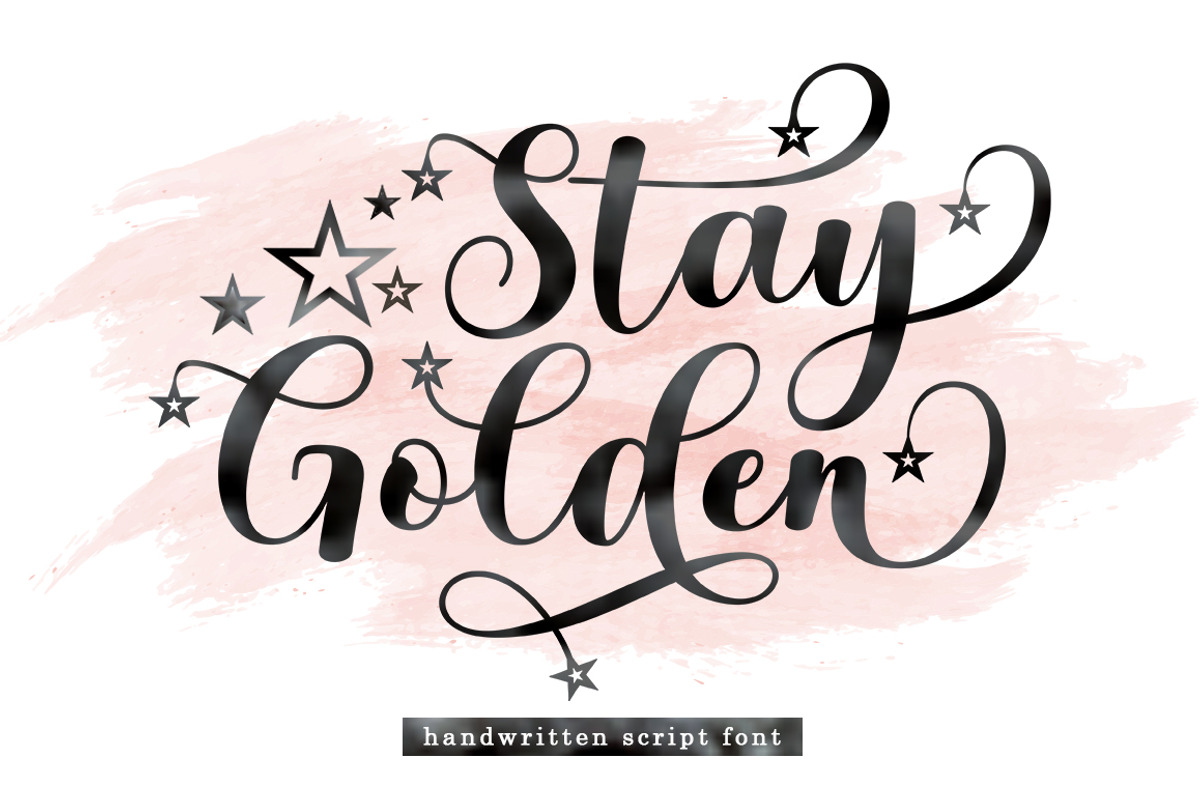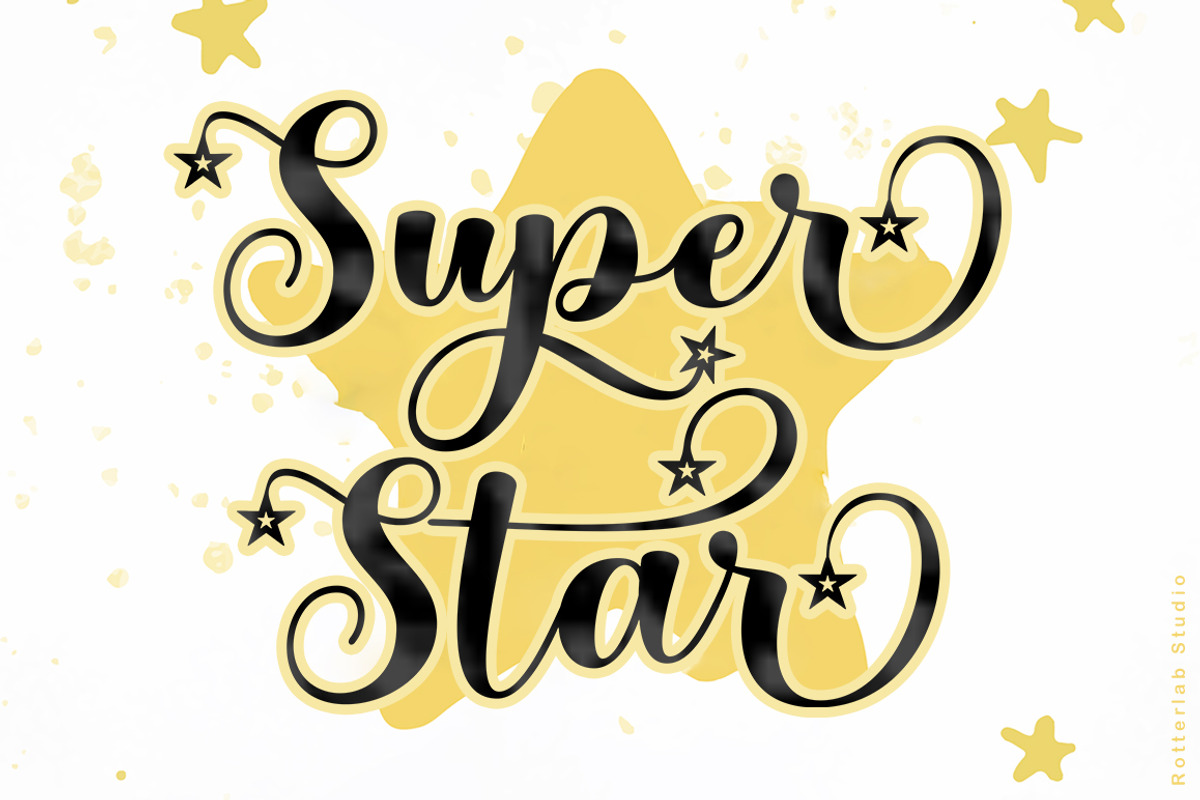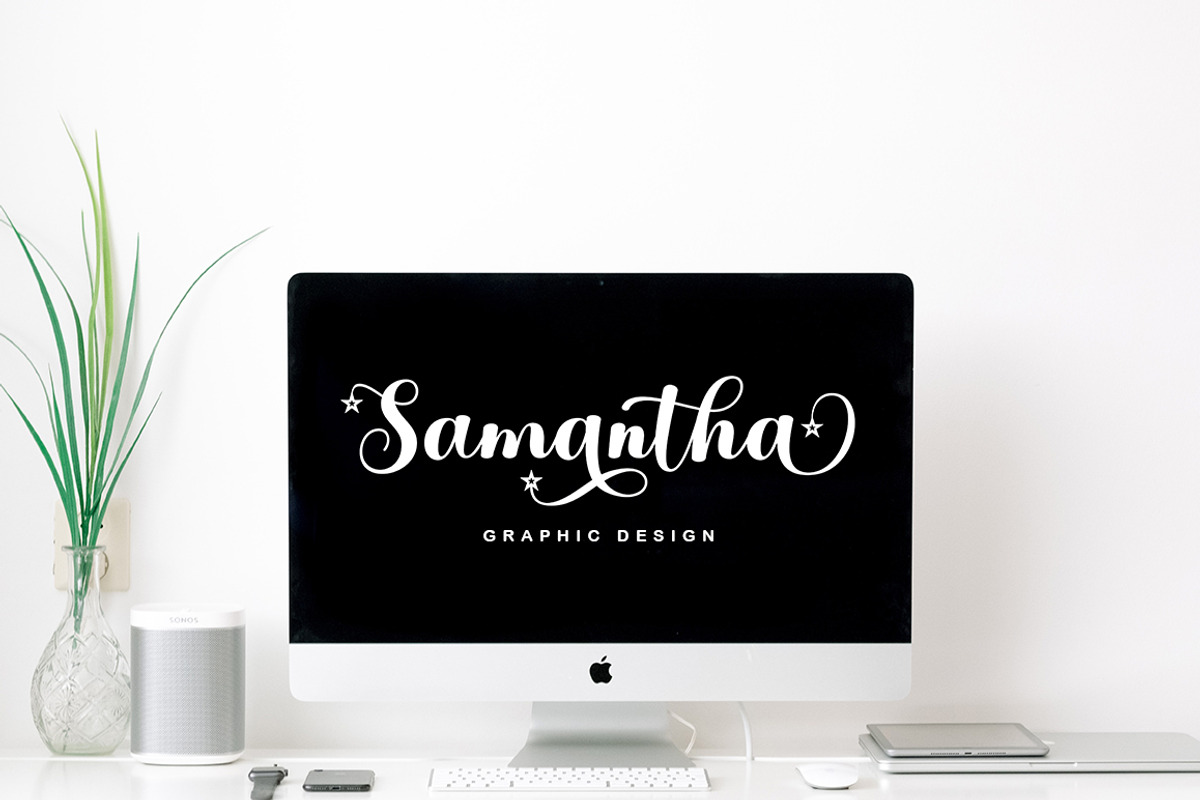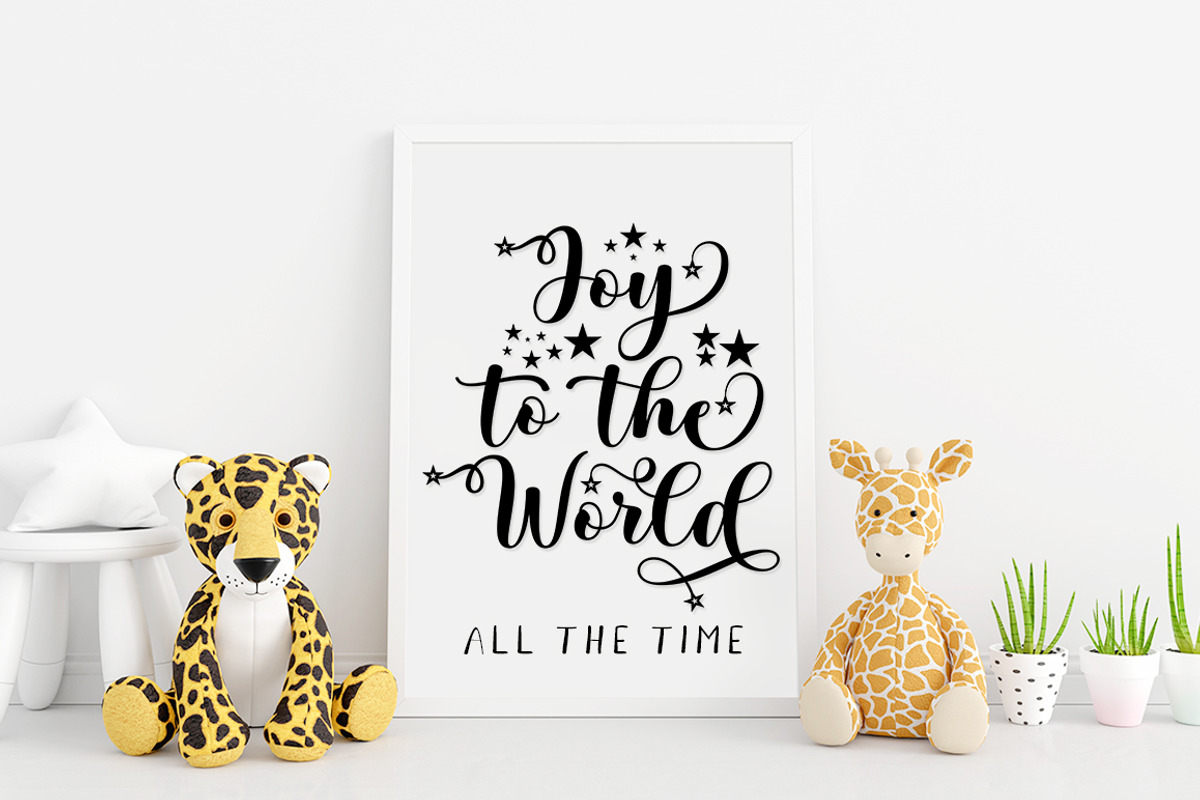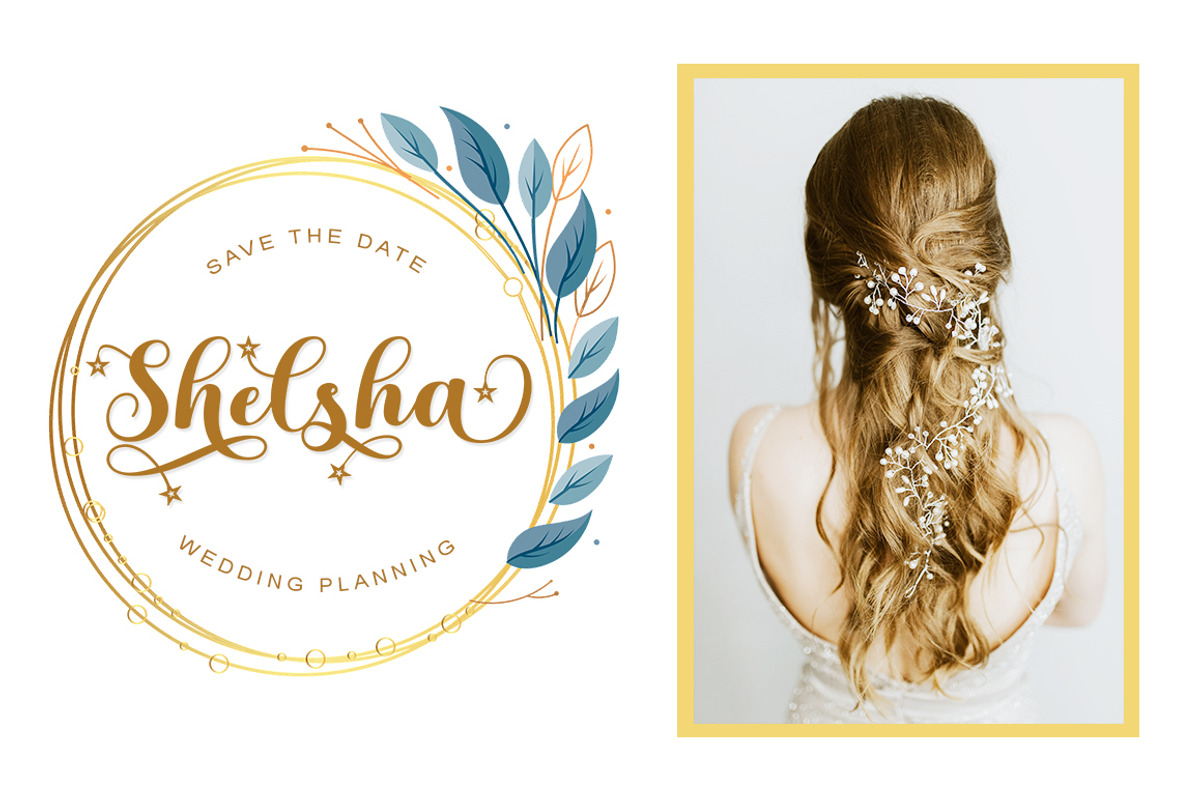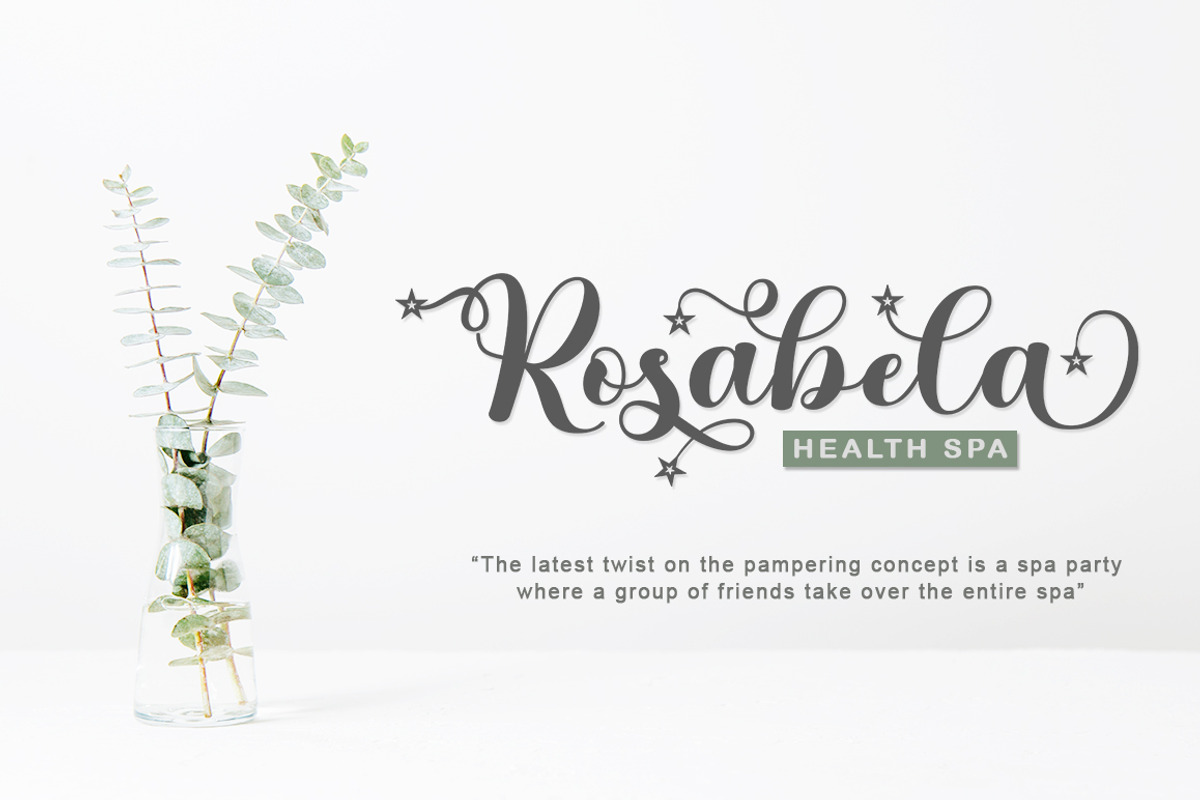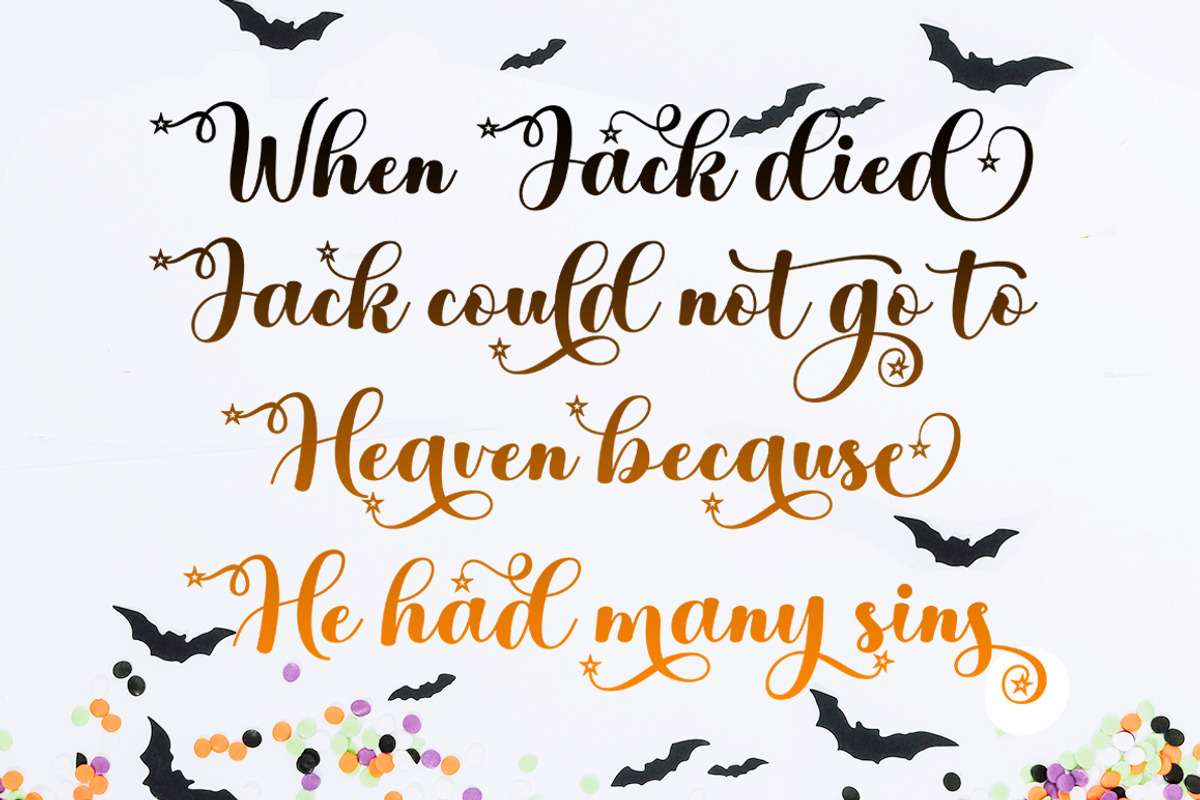
Stay Golden
Introducing Stay Golden
Script font in a smooth handwriting style and very pretty and classy. Stay Golden is perfect for branding projects, home appliance design, product packaging, use in business cards, invitation cards, etc. Simply as a stylish text overlay onto a background image or anything else that needs a touch of elegance.